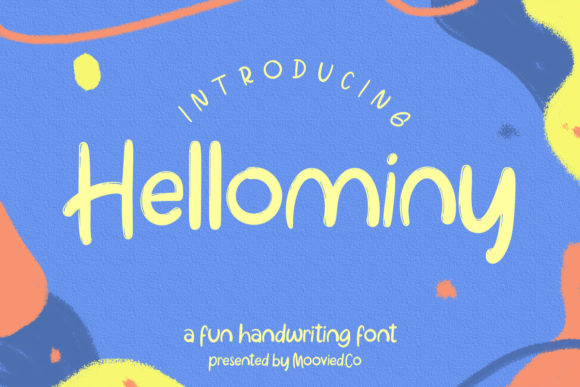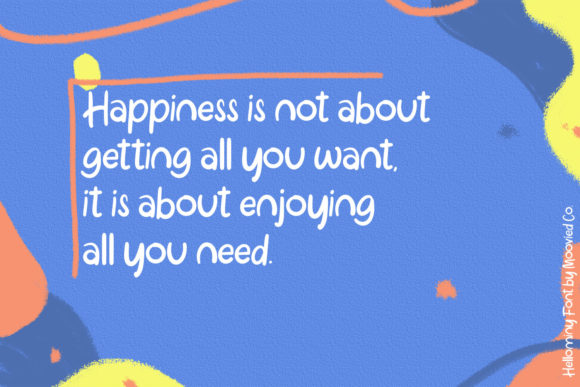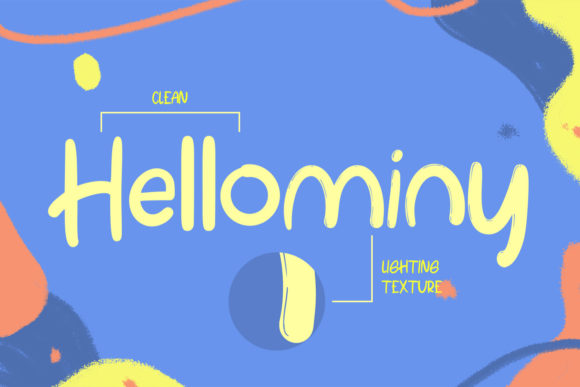
Hellominy Font
About Hellominy Font
Hellominy is a fun script font with a friendly feel. Use this gorgeous and unique font to bring any DIY project to life!